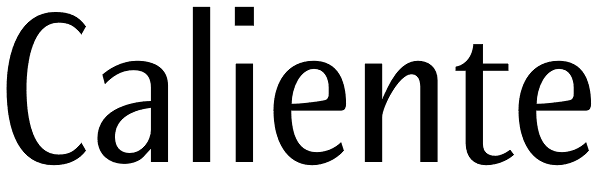
Caliente
This font is shaped to exhibit a very compact and characterized design, clearly distinguishable from the mainstream condensed sans-serif fonts. That is why Caliente has a conspicuous modulation and a medium-to-high contrast. Both features are seldom...